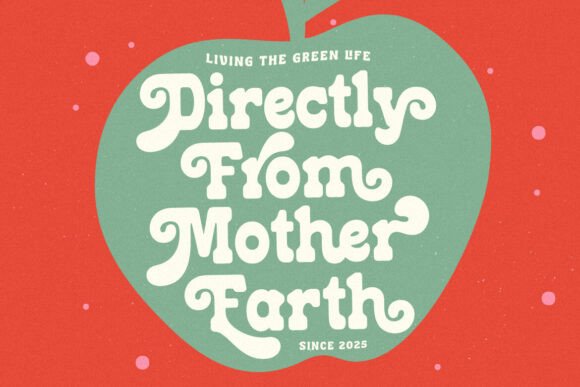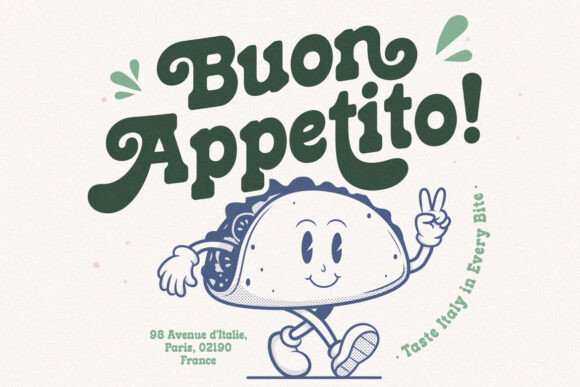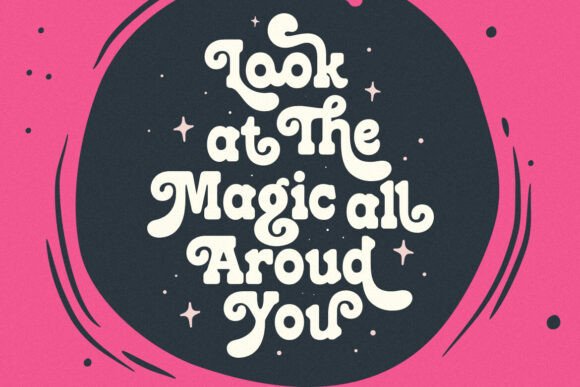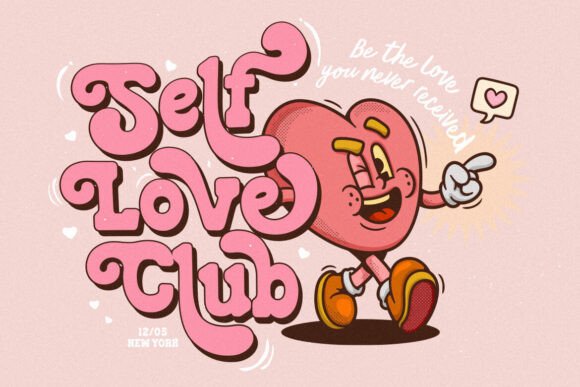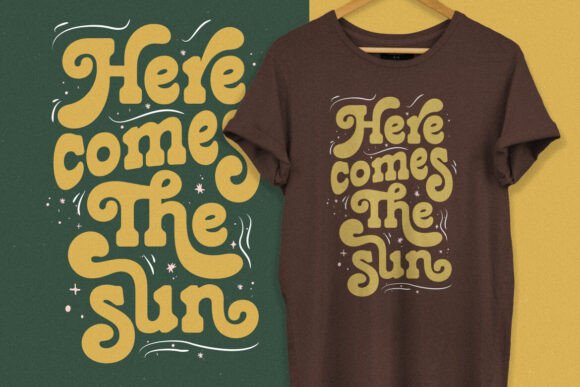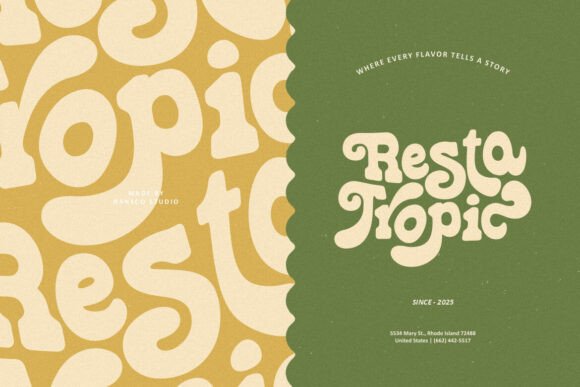
Holiday Mango Font – Free Download
Introduction to Holiday Mango Font
Holiday Mango is a unique retro slab font style.
| 👤 Author | HansCo |
This font has alternative characters in it, such as letters with tails or swashes that you can adjust to your style and creativity Very suitable for logotype, Stickers, Packaging design, Cricut Project, headlines, brand identity, t-shirt or apparel industry, posters, magazines, books, YouTube, Instagram, websites, Canva, Corjl or any of your creative design projects.
Key Features of Holiday Mango Font
Why Choose Holiday Mango Font?